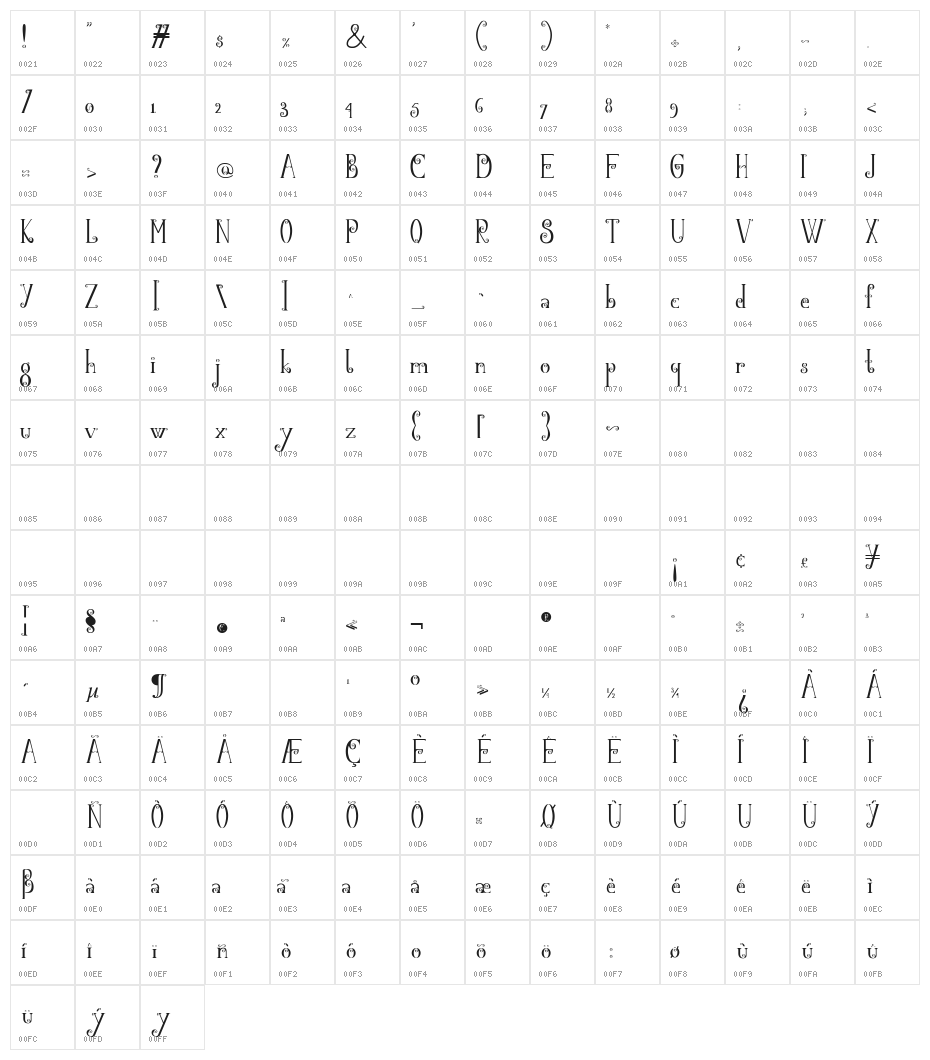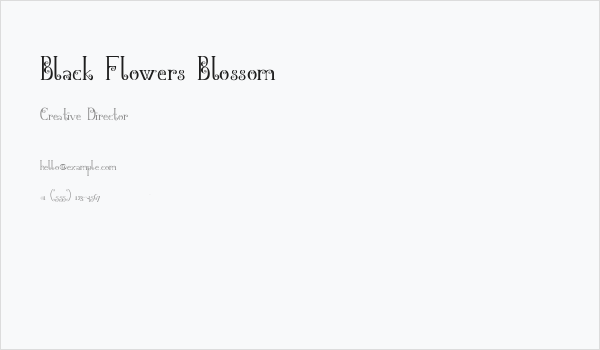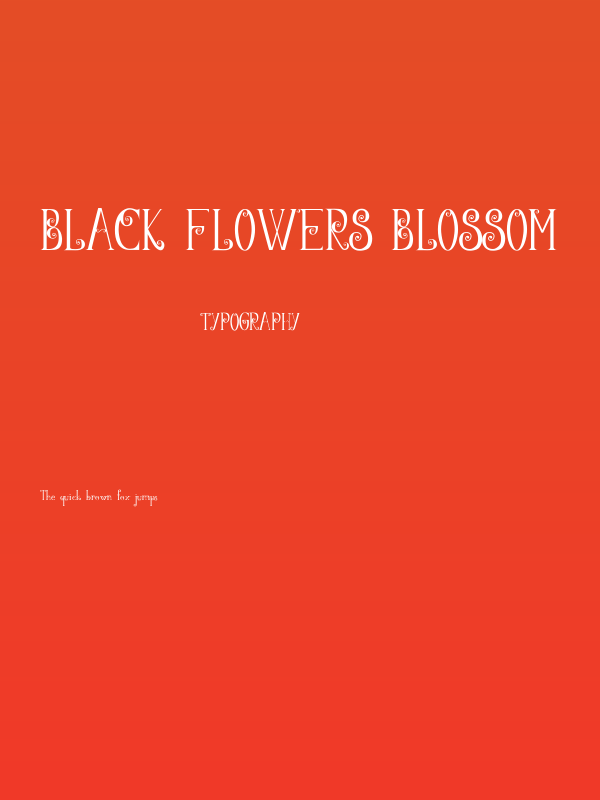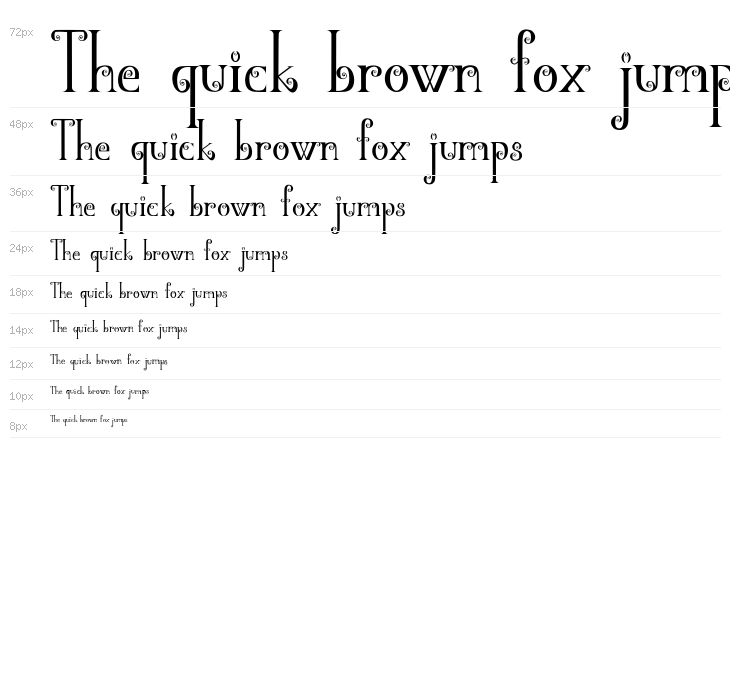
Black Flowers Blossom Font
Black Flowers Blossom Description
This font features a whimsical and decorative style, characterized by elegant swirls and flourishes integrated into each letter. The uppercase letters are tall and slender, with intricate curls that add a playful yet sophisticated touch. The lowercase letters maintain this decorative theme, offering a consistent aesthetic throughout. The numerals and special characters are equally ornate, ensuring a cohesive look across all text elements. This font is ideal for projects that require a touch of elegance and creativity, such as invitations, greeting cards, or artistic posters.
| Use Case | Headlines, Artistic projects, Invitations |
| Proposed Projects | Ideal for invitations, greeting cards, artistic posters, and decorative headings. |